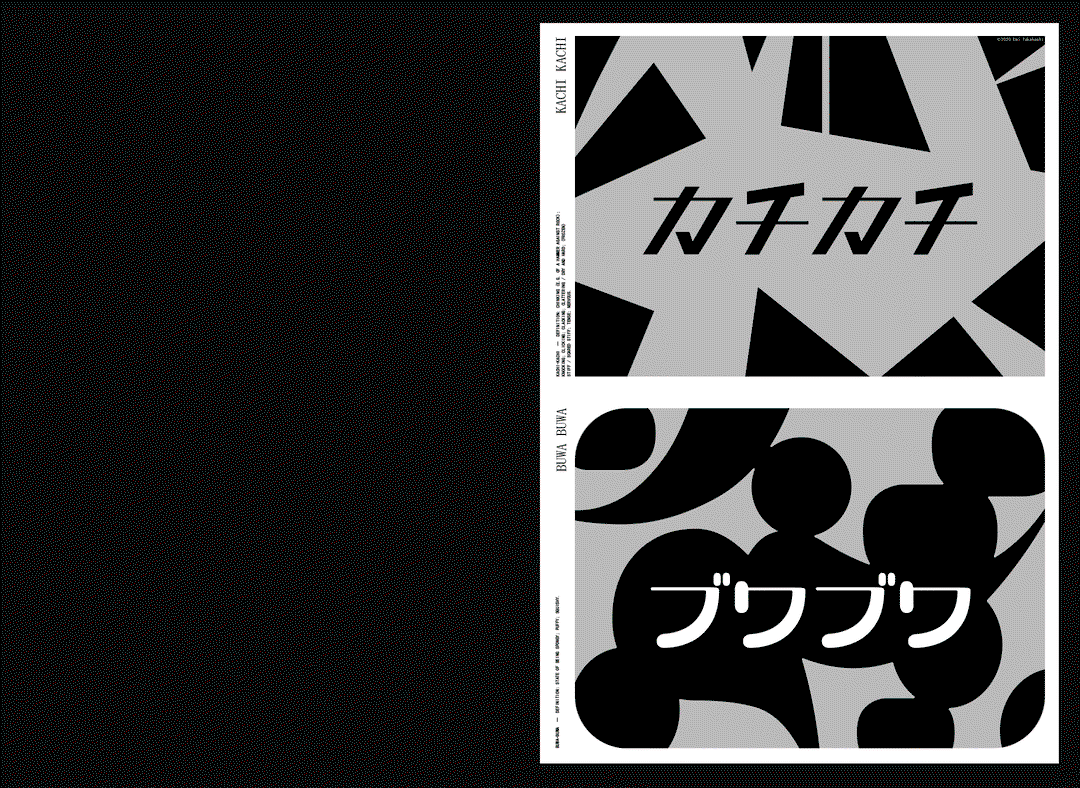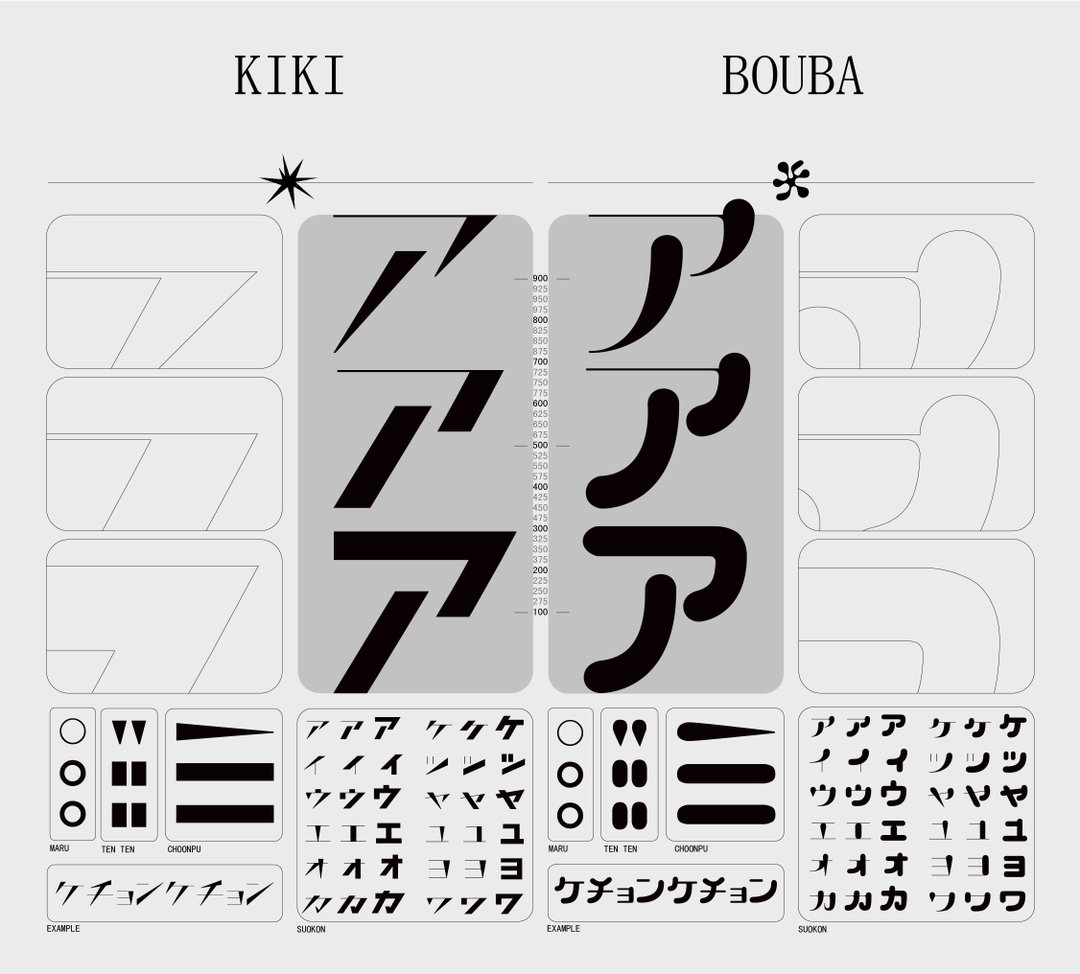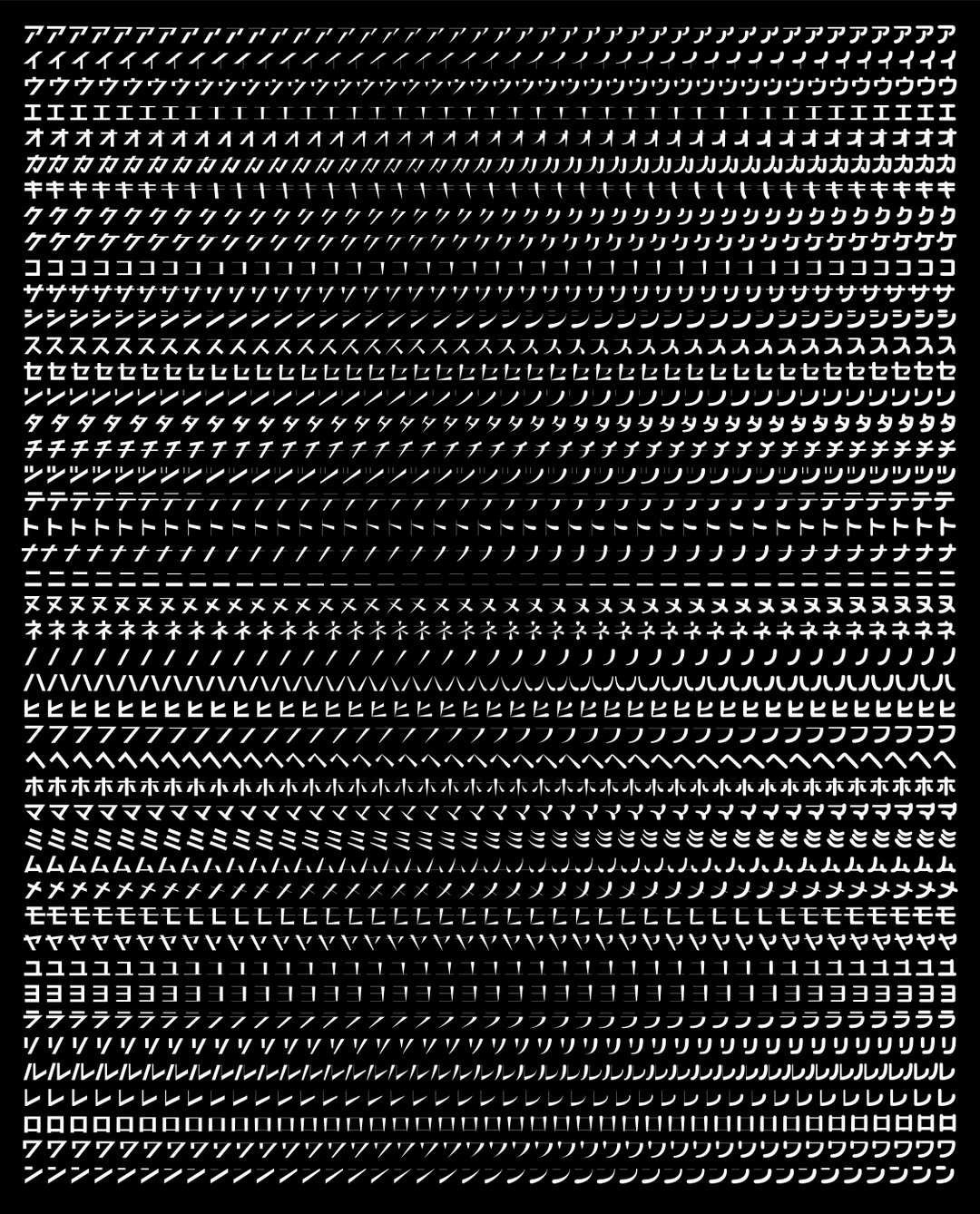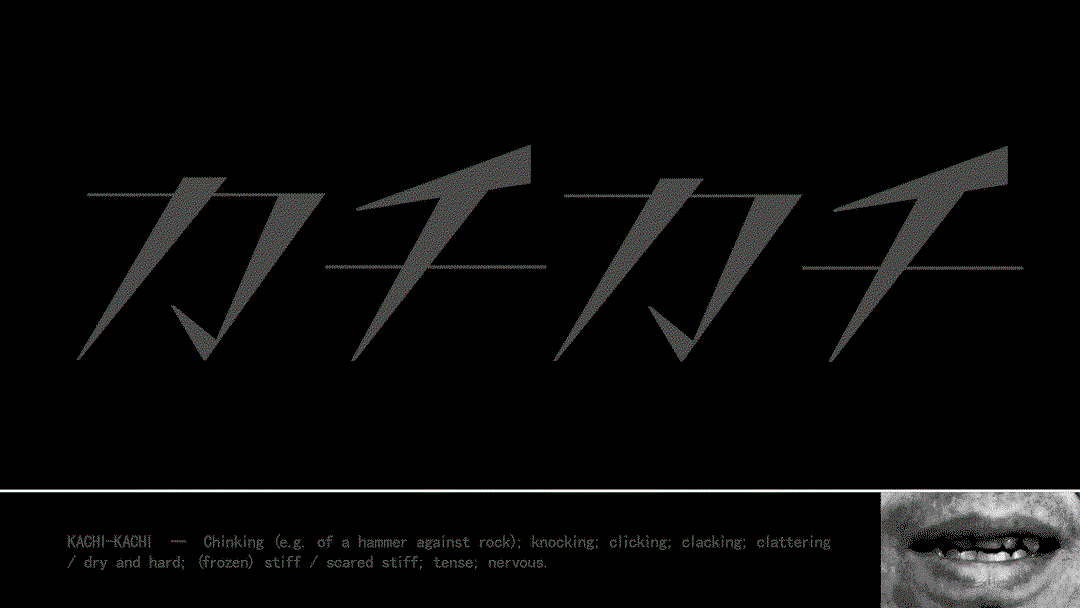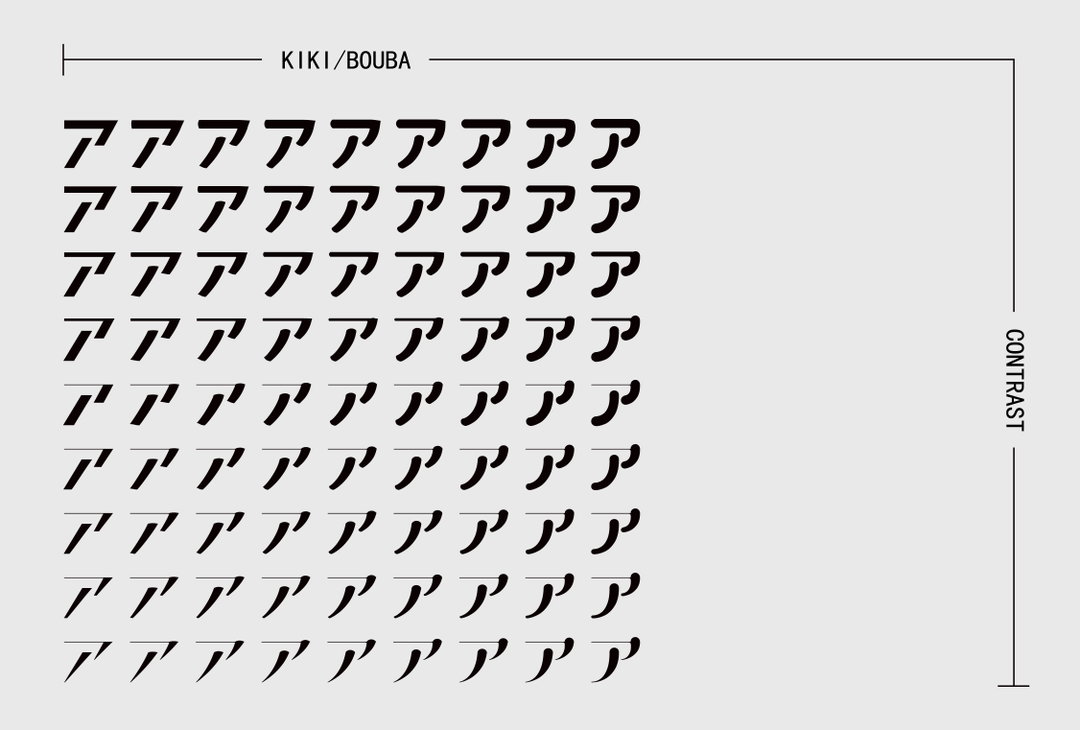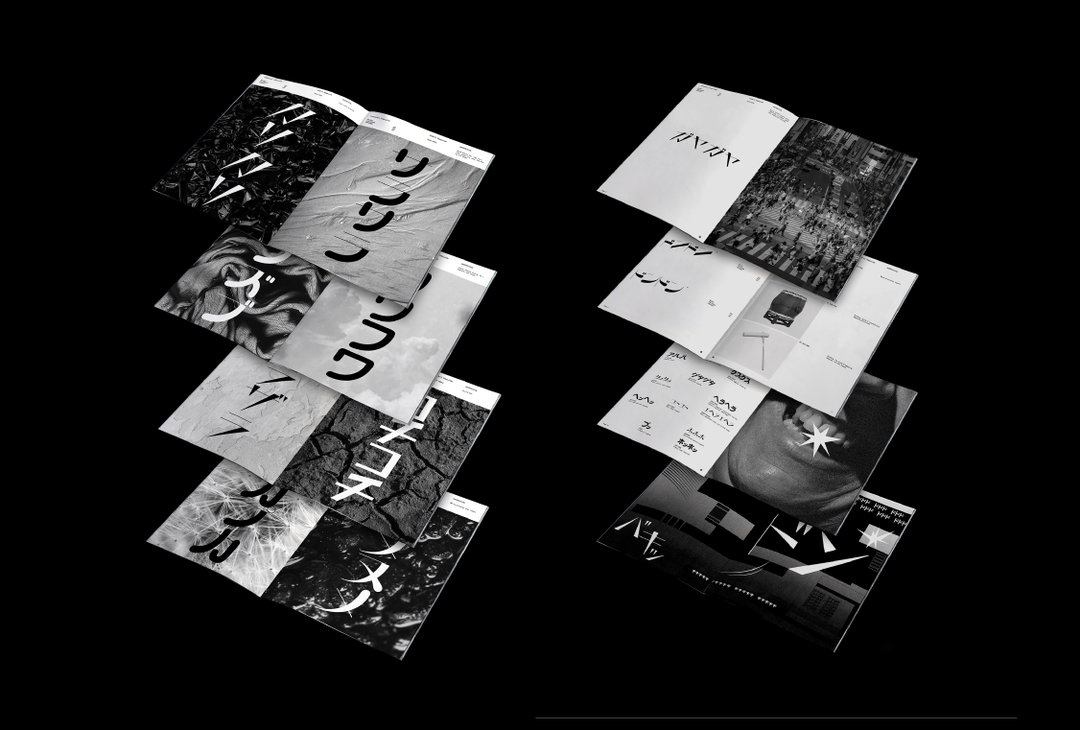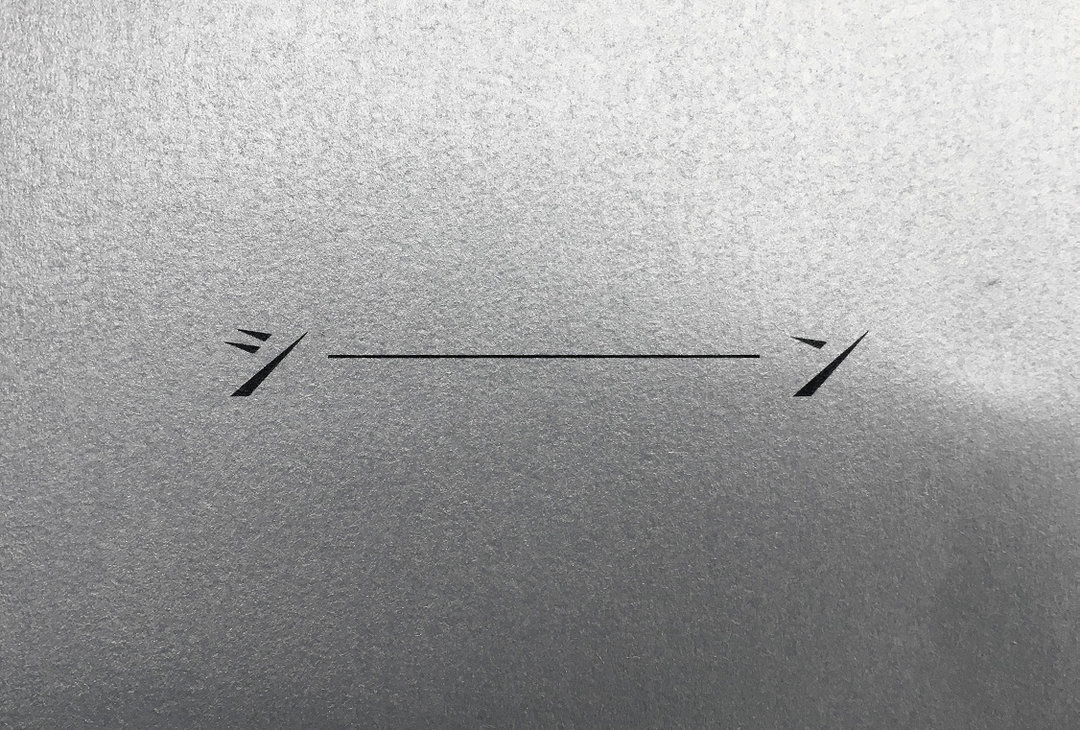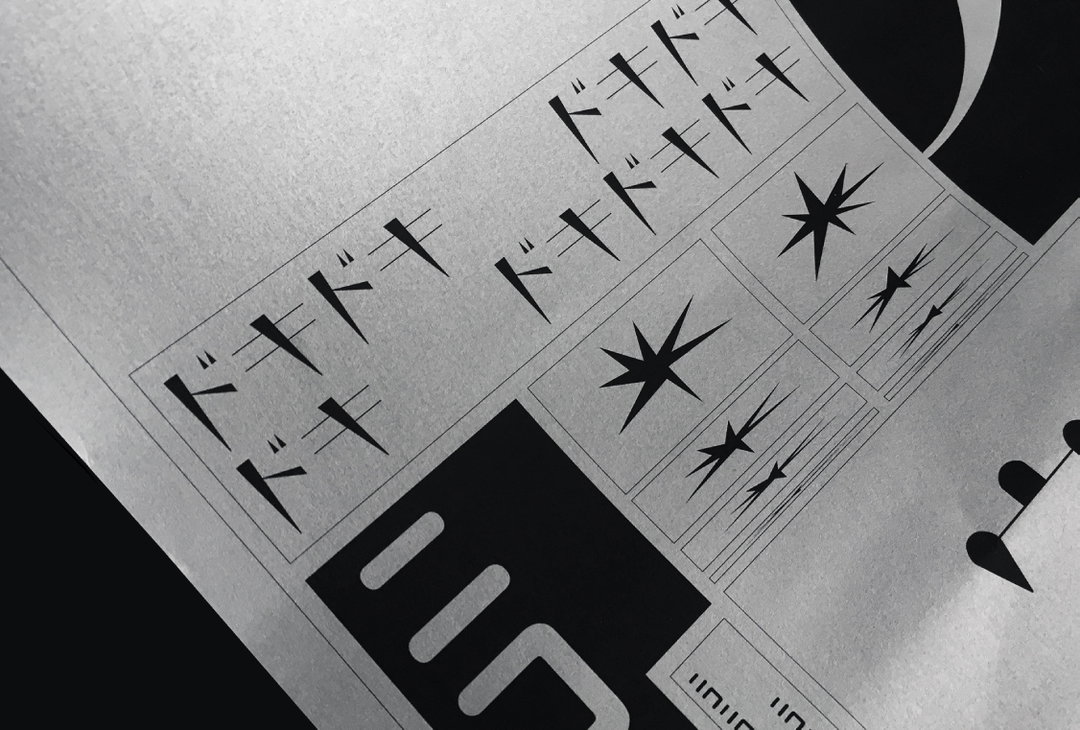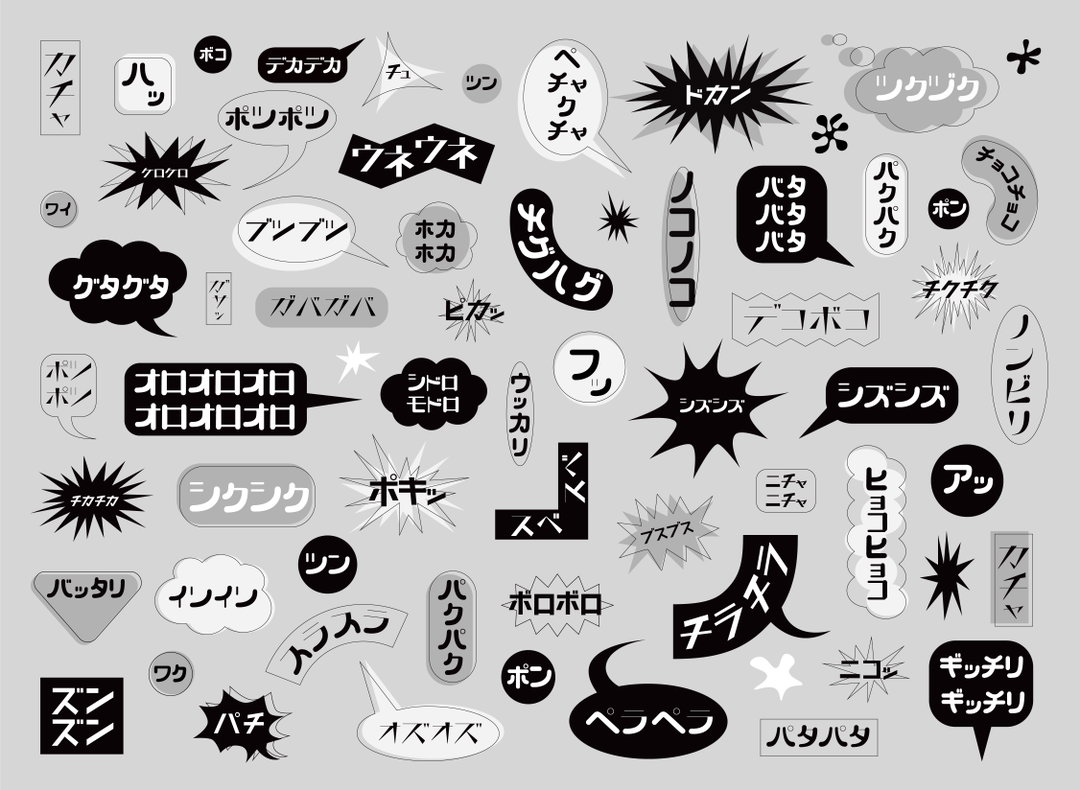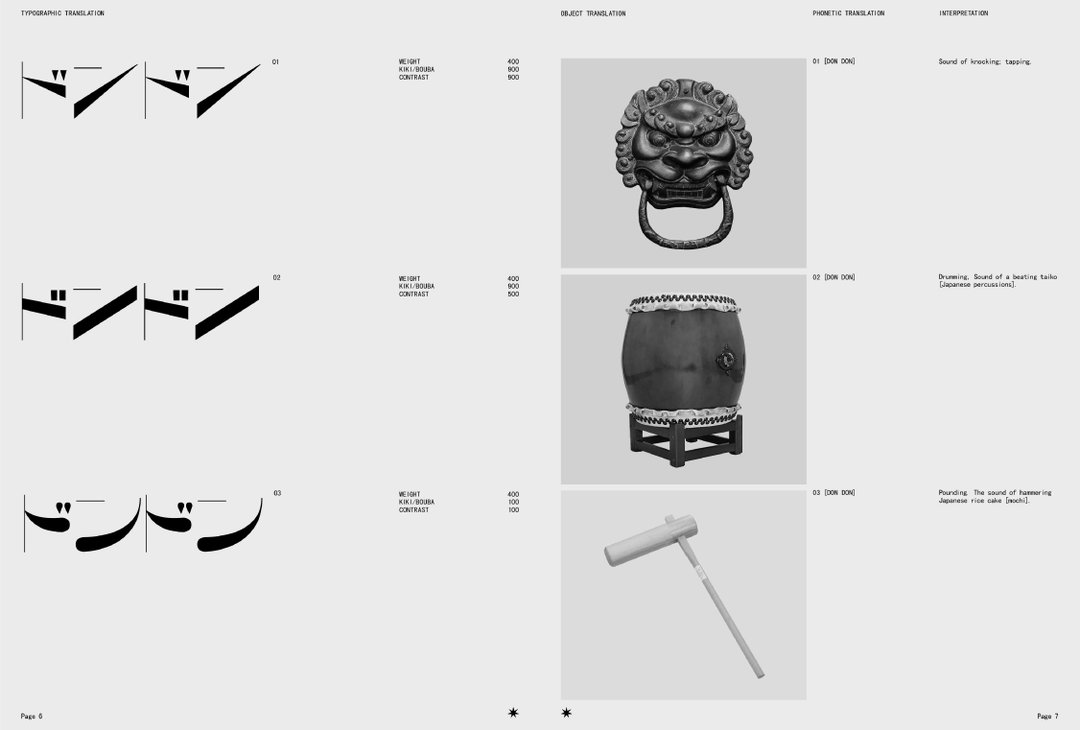
Kachi-Buwa is a variable Katakana typeface expressing Japanese onomatopoeic expressions
Emi Takahashi investigates how a typeface can communicate the linguistic nuances of onomatopoeic Japanese expressions.
Meet Emi Takahashi, the Toronto-based graphic designer and type designer with a fascinating new project we can’t wait to tell you about. Having recently graduated from OCAD University’s graphic design programme, Emi’s practice delves into cultural, pedagogical and collaborative themes. Born and raised in the Canadian city, she grew up closely involved with her parent’s respective cultures, French and Japanese. Heavily influenced by the multilingualism of her heritage, diverse writing systems have always played a prominent role in Emi’s life. She attended a school with a focus on languages during the week, then, on weekends she went to Japanese school.
There, she was introduced to the art of Shodō – traditional Japanese calligraphy – and its rich philosophy which goes hand in hand with the writing form. Taught by a “tremendously passionate and skilled teacher,” Emi came to understand that letterforms are so much more than a tool of communication. She tells us, “it could also be a craft and a field of study.” In turn, typography has since been a constant interest for Emi, a medium she returned to time and time again throughout her graphic design studies.
Her interest in type has most recently culminated in a project titled Kachi-Buwa. “It investigates how design can communicate the nuances in connotations and culture-specific context expressed by onomatopoeia in the Japanese language,” she tells us. Onomatopoeic words, she reminds us, are an interesting exception in linguistics where words non-arbitrarily bind sound with meaning. “They are often the first classes of words one encounters as a child,” says Emi, “from animal sounds such as ‘moo’, ‘meow’ and ‘woof’ to noises such as bang, boom or pop” which are all words formed from the sounds they are associated with.
Japanese onomatopoeias however, take this even further as many of the words also convey sensory experiences and human-made concepts. To describe the feeling of stickiness for example, there are a variety of nuanced expressions: “nuru nuru, neto neto, neba neba, beto beto, beta beta,” Emi points out. Alternatively, there are many Japanese onomatopoeic expressions which communicate emotional or psychological states of mind that are hard to get across with descriptive terms. It’s an elaborate and rich symbolic sound system, consisting of more than 4500 expressions which, Emi explains, “makes a visceral kind of communication possible.”
“When I listened to these expressions,” the designer continues, “absorbing their meanings was for me, akin to ‘reading the air’ or kuuki wo yomu, which is a collective cultural understanding of context particular to Japanese culture where one can understand a situation without words. I found this both fascinating and intriguing, and I sought to explore a typographic interpretation.” As a result, Kachi-Buwa is a conceptual variable Katakana typeface which aims at bridging sound, form and signification while being simultaneously embedded in Japanese visual culture.
Delving into a four month long research phase, Emi kicked off the project with a deep dive into both Eastern and Western usages of onomatopoeia and its etymological, linguistic, historical and semantic perspectives; not to mention their relationship to one another. Another prominent branch of her research involved looking into more modern typoraphic technologies, more namely, the variable typeface.
Coupling this research together, Emi went onto create her own variable Katakana font, a demonstration of the non-arbitrary relationship between sound and form; otherwise known as the “Kiki-Bouba effect.” This effect entails the instinctive visualisation of the two words “Kiki” and “Bouba.” Due to the spiky shape of the former, “Kiki” is often mapped out with rigidity as opposed to rounded shapes which form the word “Bouba”.
In a similar way, the name of Emi’s typeface is Kachi-Buwa, “a playful invention borrowing from Japanese onomatopoeias whose meaning and sound evoke the “Kiki” and “Bouba” concept. She demonstrates as she concludes: “kachi kachi (カチカチ) describes sharp, rambunctious sounds, the state of stiffness as well as feelings of nervousness whereas buwa buwa (ブワブワ) is the state of being spongy, puffy or squishy.”
Kachi-Buwa (Copyright © Emi Takahashi 2020)
Kachi-Buwa therefore, is highly original and innovative is its ability to capture the “kikiest” and “boubaest” of Japanese onomatopoeic expressions and anything else in between. Mapped out on two variable axis which visually express these ideas, Kachi-Buwa can create a near-infinite range of typographic variations that grant a wholly unique form of communication. Currently, the typeface includes 46 regular Katakana, 12 small Katakana and three diacritics, generating a total of 84 distinct glyphs. Without the use of the variable font tool, the typeface impressively consists of 504 unique glyphs evidenced in a range of mini projects also designed by Emi including the likes of a newspaper, zine, poster, storybook and onomatopoeic music video.
By no means a simple undertaking, this extensive project has allowed Emi “to insert a rich and under-recognised brand of both traditional and modern Japanese culture into a present-day design discourse.” Merging sound, meaning and form through harmonious type design, Kachi-Buwa is both light hearted in nature yet unconstrained in its expression. Finally, the designer goes on to say, “I hope that this introduction to Japanese onomatopoeia can offer audiences a lesson in synaesthetic articulation and spark with curiousity and a sense of wonder for the very nature of language.”